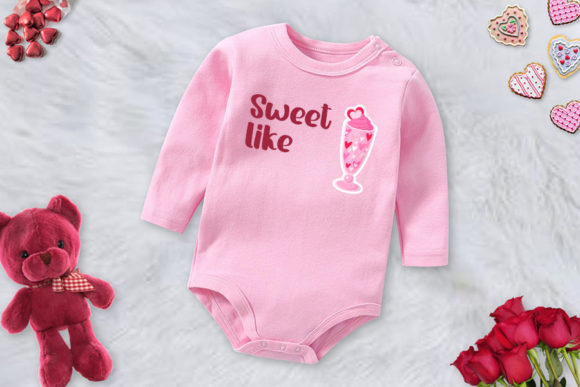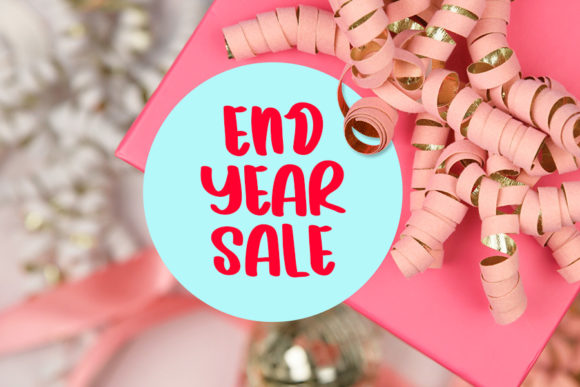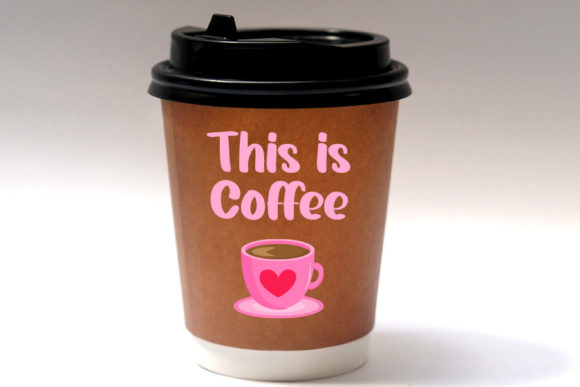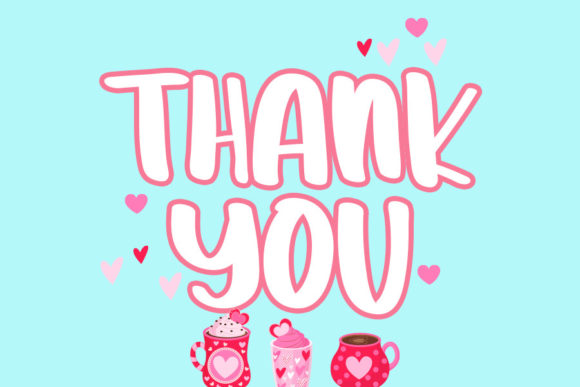
The Perfect Blend of Creativity: Introducing the Barney Milkshake Font
Have you ever been brainstorming a new design project, only to be stuck on the perfect font to bring your vision to life? It’s a feeling we’ve all been there, staring at a blank page, searching for the perfect combination of style and functionality. For designers, the right font can make all the difference in capturing the essence of a brand or message.
Enter the Barney Milkshake Font, a bold and thick lettered display font that’s perfect for making a statement. Whether you’re creating logos, wedding invitations, or signage, this versatile font is sure to grab attention and leave a lasting impression. Its value lies in its ability to add a touch of personality and whimsy to any design, making it a valuable asset for designers looking to stand out from the crowd.
Barney Milkshake Font Key Features
- Font Family: A playful, cursive font with rounded edges and a friendly feel.
- Unique Characteristics: Distinctive rounded terminals and swashes, giving the font a whimsical and approachable look.
Designer Review: Barney Milkshake Font
Overall, I think the Barney Milkshake Font has some great qualities that make it a fun addition to any design project. ✨ The playful, cursive feel is perfect for creating a whimsical atmosphere, especially for children’s content or brand identities that want to stand out. The font is also highly customizable, allowing designers to adjust the color, size, and spacing to fit their specific needs.
The font’s unique letterforms and flourishes add a touch of personality to any text, making it ideal for headings, titles, and other display typography. ✨ Additionally, the font is highly legible, even at smaller sizes, which is a must for any font intended for wide use.
- ⚠️ Limited language support: The font only includes the standard Latin alphabet, which may limit its use for multilingual projects.
- ⚠️ Limited glyph coverage: The font lacks some common glyphs, such as currency symbols and mathematical operators, which may require designers to use additional fonts or workarounds.
Overall, I think the Barney Milkshake Font is a great choice for designers looking to add some personality to their projects. While it has some limitations, its unique feel and high customizability make it a valuable addition to any design toolkit.
The Barney Milkshake Font is a playful and fun font that is perfect for creating eye-catching designs and graphics. Some common use cases include:
- Designing kids’ party invitations and decorations.
- Creating social media graphics and posts.
- Designing logos and branding materials for children’s businesses.
Remember to use the font in moderation and balance it with other design elements to avoid overwhelming the viewer.